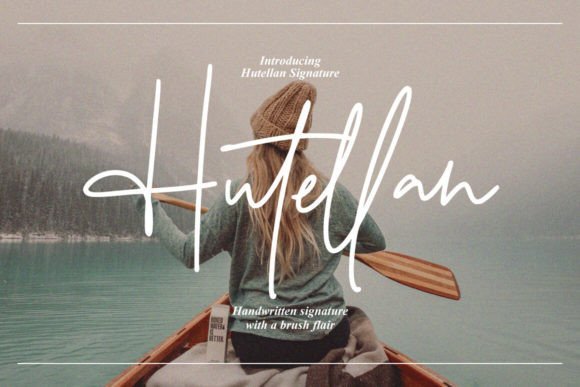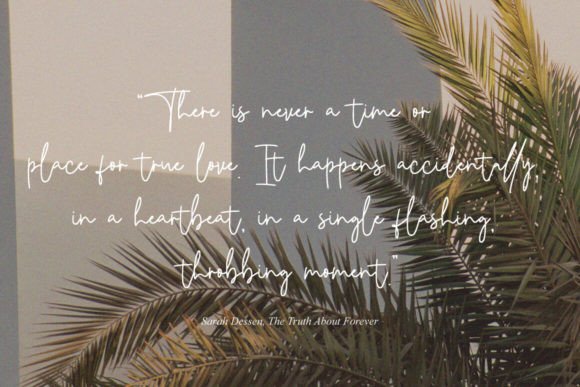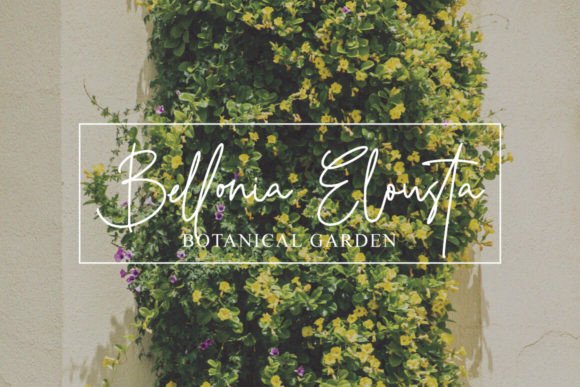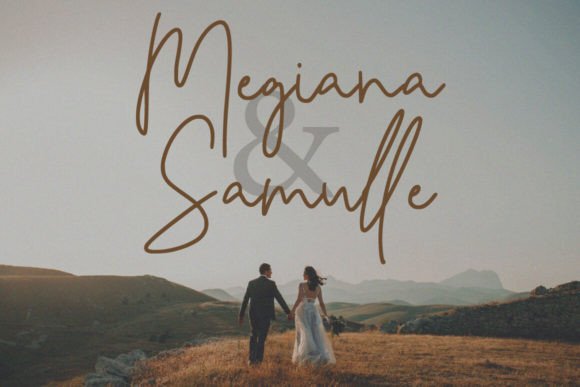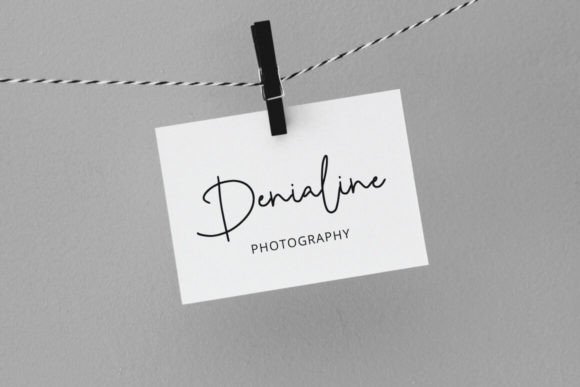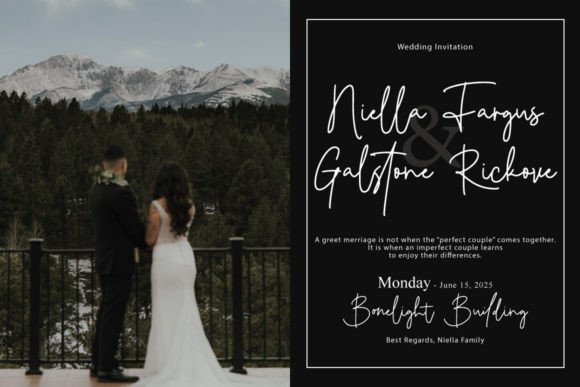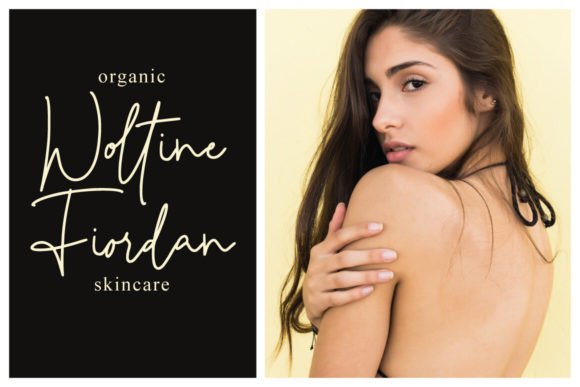
Find Your Creative Voice with Hutellan Font
Do you remember the moment when a font suddenly sparks an idea and brings your project to life? For designers, this moment is priceless. It’s a fusion of creativity, inspiration, and a dash of magic. This is exactly what the Hutellan Font can do for you.
Imagine a handwritten font that effortlessly blends classic calligraphy with modern charm. Hutellan Font is more than just a typeface – it’s a creative partner that elevates your designs to new heights. Whether you’re crafting a wedding invitation, a branding campaign, or a social media post, Hutellan Font is the perfect companion to help you express your unique style.
As a valuable addition to your design toolkit, Hutellan Font offers a level of sophistication and elegance that’s hard to find. With its versatility and charm, it’s no wonder that designers are falling in love with this beautiful font.
Hutellan Font Key Features
- Unique Characteristics: Hutellan Font features a unique blend of modern and traditional design elements, making it a versatile choice for a wide range of design projects.
Hutellan Font Review
Overall, I’m quite impressed with Hutellan Font. The font has a unique, modern feel to it, and the designer has done a great job of balancing elegance and playfulness. ✨ The varied letterforms and creative flourishes give it a touch of whimsy, while the solid structure keeps it grounded and easy to read.
The font’s flexibility is one of its strongest points. It works well for a variety of applications, from titles and headings to body text and even logotypes. ✨ It’s particularly effective in digital formats, where its clean lines and modern aesthetic really shine.
- ⚠️ Limited character set: While Hutellan Font is available in a range of weights, the character set is relatively limited, which may be a concern for users who need to typeset complex documents or languages.
- ⚠️ Some characters may not be suitable for print: While the font looks great on screen, some of the characters may not be ideal for print, where the subtle variations in line width and spacing may not translate as well.
Overall, I’d give Hutellan Font a solid 4 out of 5 stars. While it may not be perfect, its unique style and flexibility make it a great choice for designers looking to add a touch of personality to their work. With some careful consideration of its limitations, Hutellan Font can be a real showstopper in the right context.
Tips for Getting the Most Out of Hutellan Font
Use Hutellan font for titles, headings, and emphasis to add a touch of elegance and sophistication to your designs.
Experiment with different font sizes and styles to create visual hierarchy and balance in your designs.
Hutellan font is ideal for:
Corporate branding and marketing materials
Editorial and publishing designs